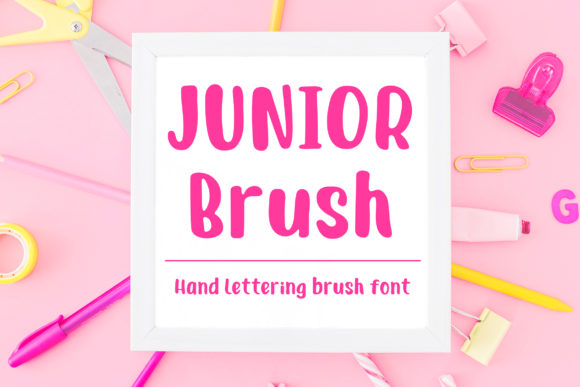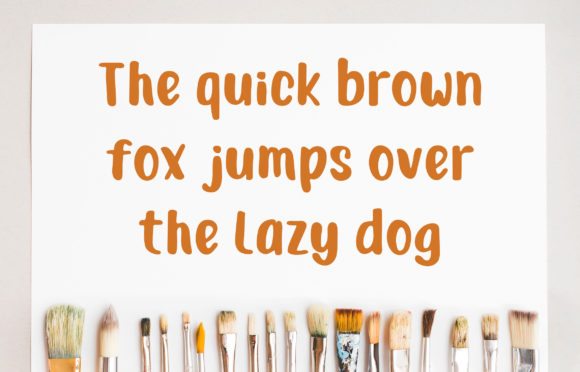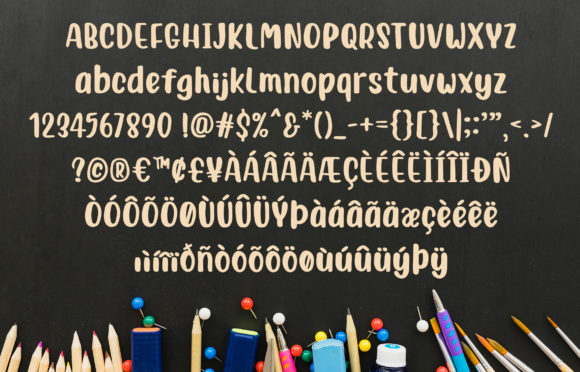
Junior Brush Font
About Junior Brush Font
The Junior Brush is a new brush typeface. It has a clean and simple style and was handwritten with a Tombow large brush file.